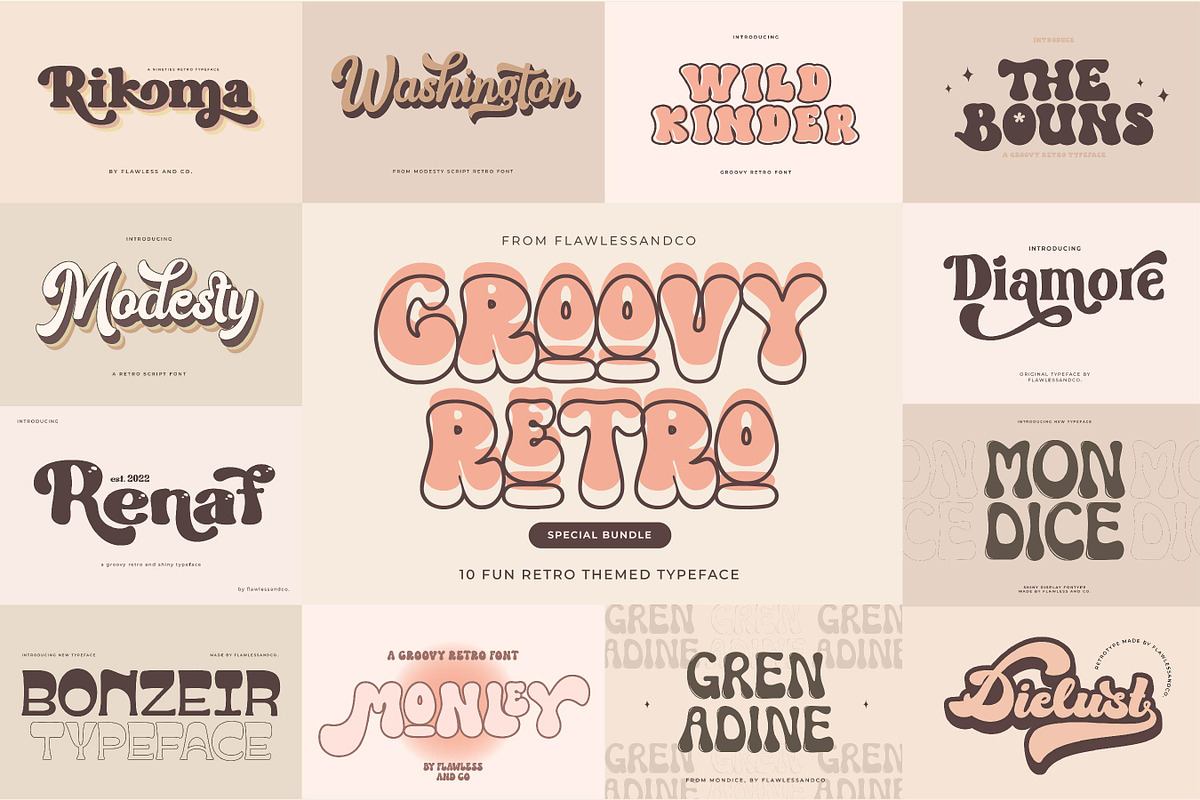
Groovy Retro Special Bundle Free Download
Groovy Retro Special Bundle Font Free Download
Groovy Retro Special Bundle Font Free Download is a vibrant and funky collection of retro-inspired typefaces that channel the bold, colorful spirit of the ’60s and ’70s. With playful curves, psychedelic shapes, and eye-catching letterforms, this bundle is perfect for posters, T-shirt designs, branding, album covers, and anything that needs a fun vintage flair.
Packed with multiple groovy fonts and bonus elements, Groovy Retro Special Bundle Font Free Download gives you endless creative possibilities. Whether you're crafting a nostalgic throwback or adding retro energy to a modern project, this bundle delivers bold style with a funky twist.